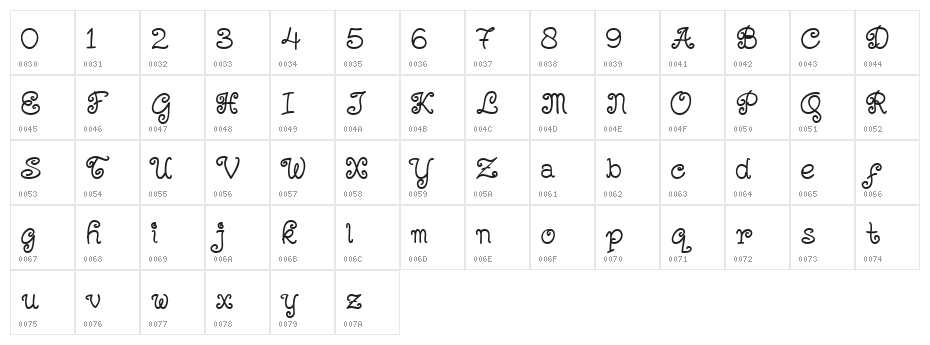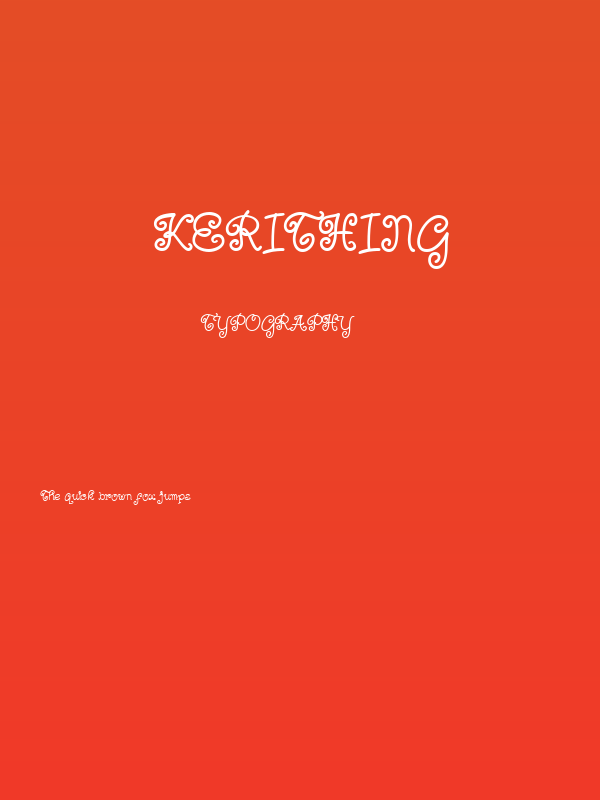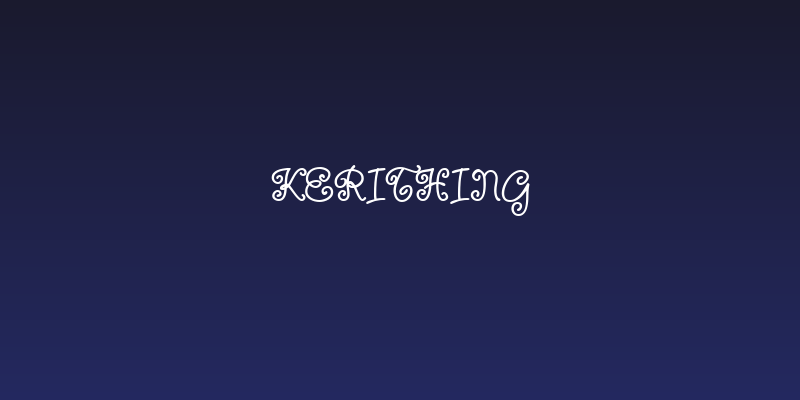
Kerithing Font
Kerithing Description
This font features a whimsical and decorative style with intricate curls and loops adorning each character. The uppercase letters are bold and ornate, while the lowercase letters maintain a playful yet elegant appearance. The numerals are consistent with the overall decorative theme, making them stand out with their unique flair. The special characters are equally embellished, adding a cohesive look to the entire set. This font is ideal for creative projects that require a touch of fantasy and charm, such as invitations, greeting cards, and artistic branding.
| Proposed Projects | Ideal for invitations, greeting cards, artistic branding, and fantasy-themed designs. |